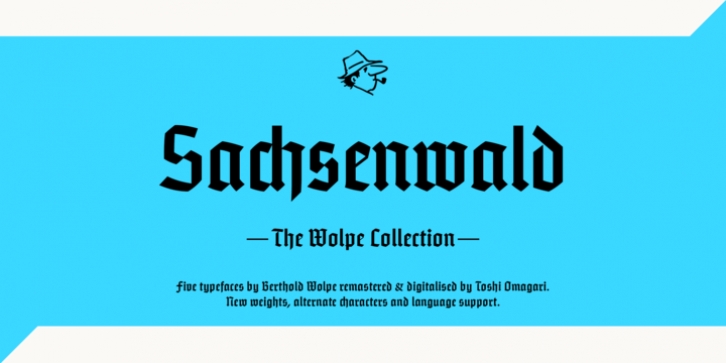
Toshi Omagari's revived Sachsenwald design can be the perfect choice for distinctive headlines and brand identities for music, movies, video games and more. The revised design includes a regular and light weight – maintaining its distinctive design traits and adding more versatility.